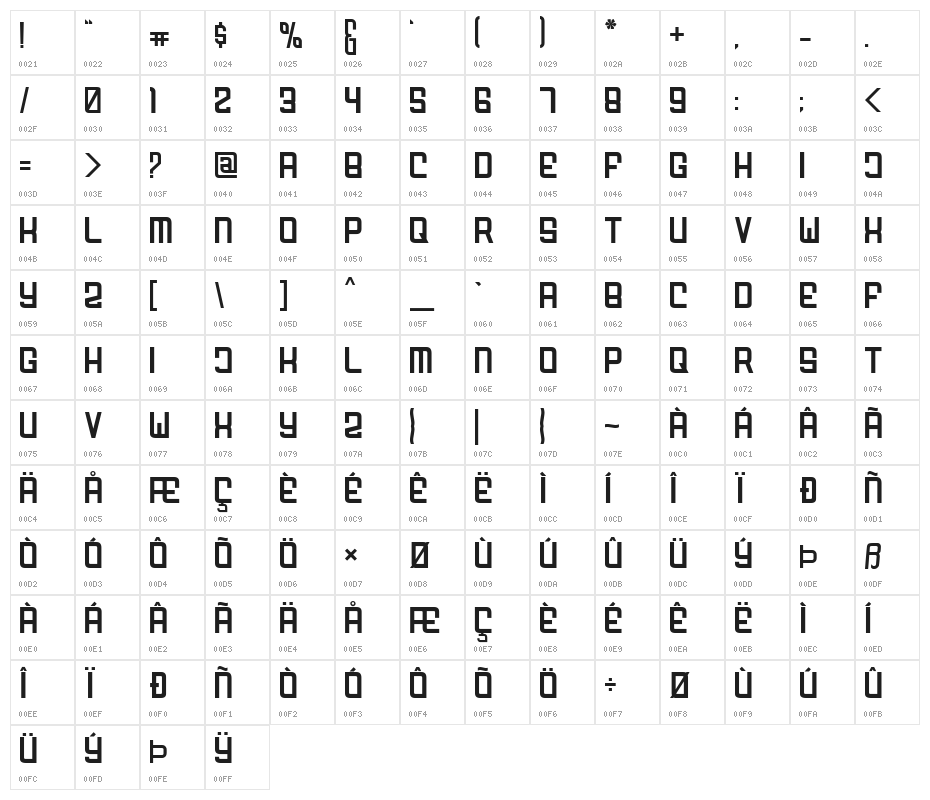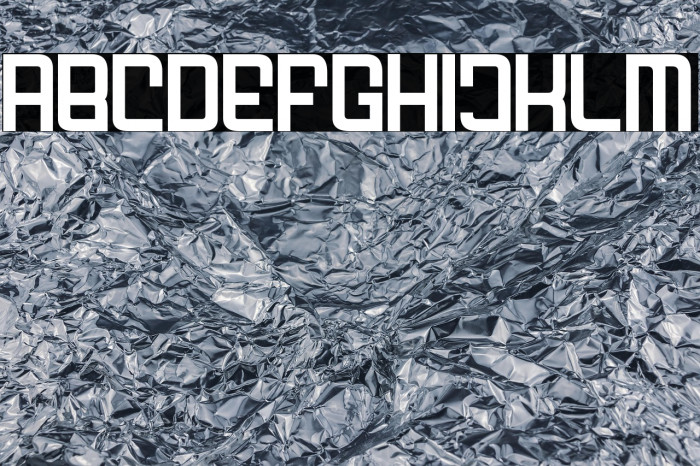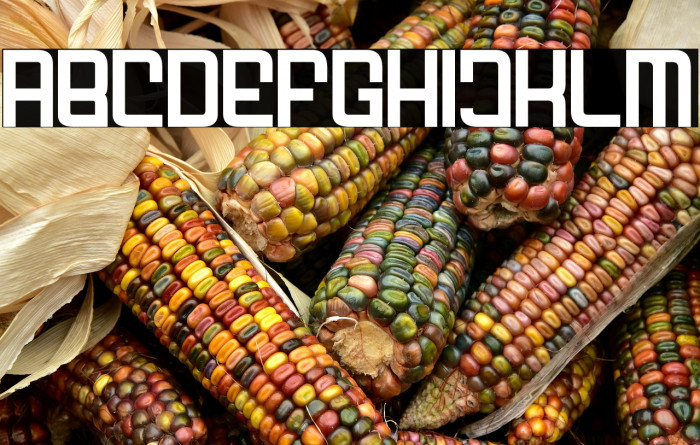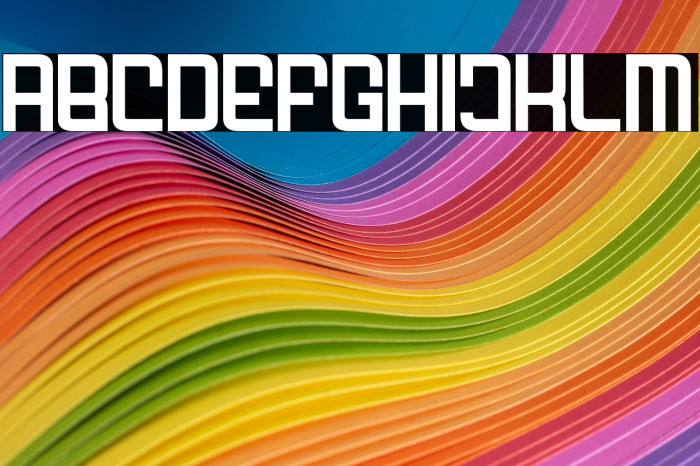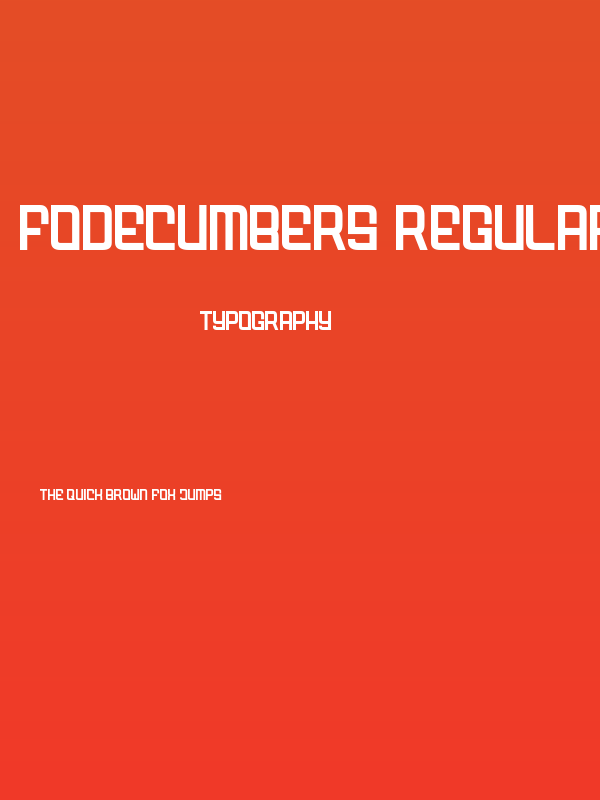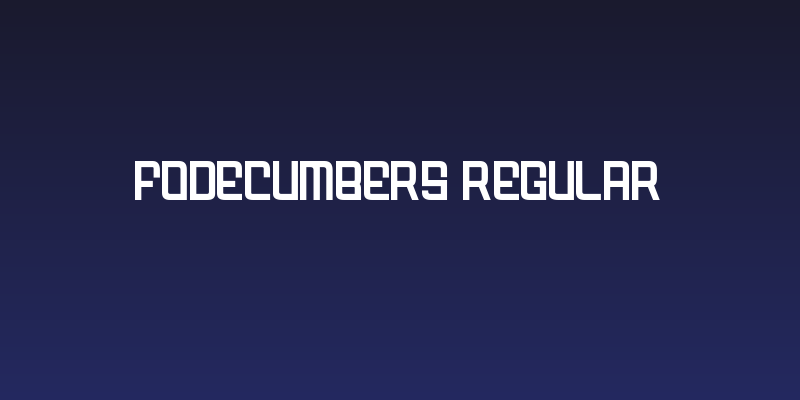
FODECUMBERS REGULAR Font
FODECUMBERS REGULAR Description
This font exhibits a bold and geometric style, characterized by its blocky and angular letterforms. The uppercase letters are uniform in height, with a consistent stroke width that gives a strong and impactful appearance. The lowercase letters maintain the same geometric structure, ensuring readability and cohesion across different text sizes. The numerals are distinct and clear, matching the overall aesthetic of the font. Special characters are designed with the same attention to detail, providing a complete and versatile character set. This font's modern and industrial feel makes it suitable for various design applications.
| Proposed Projects | Ideal for branding, posters, headlines, and any design requiring a strong visual impact. |